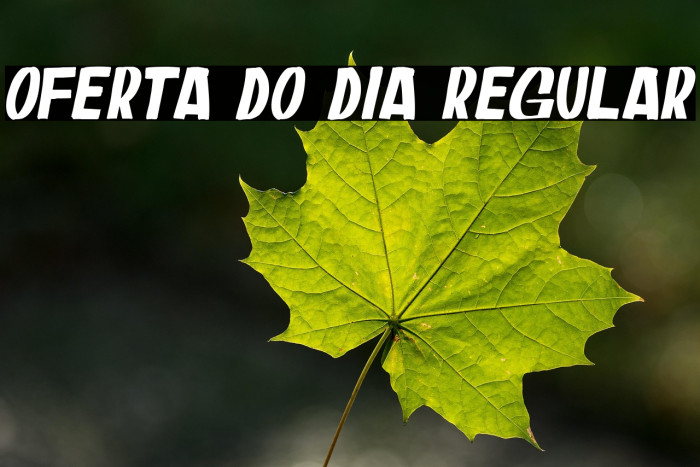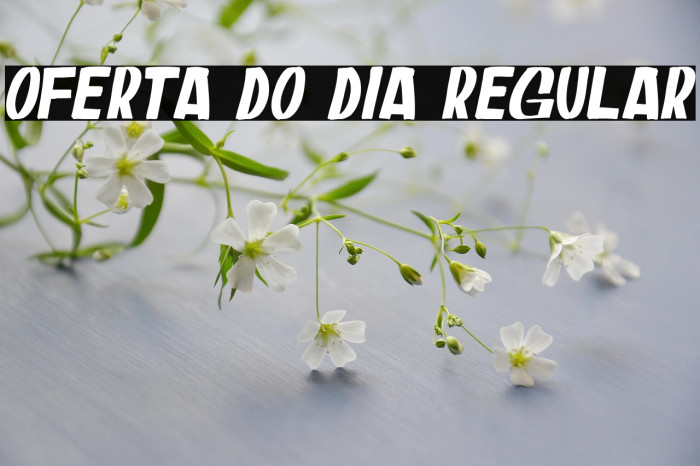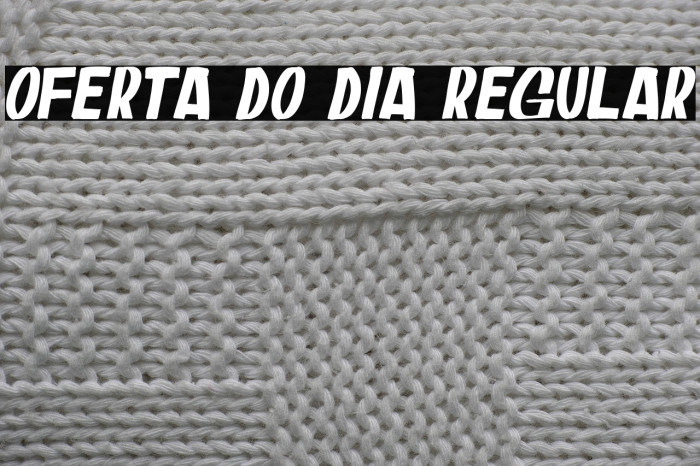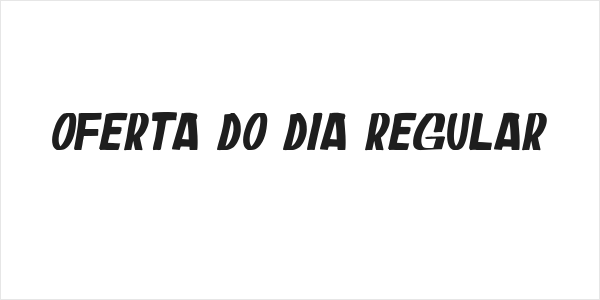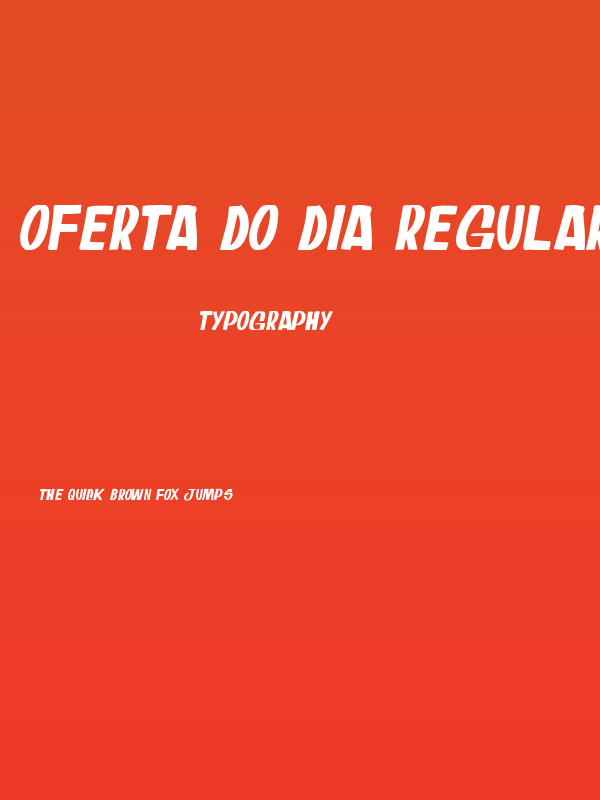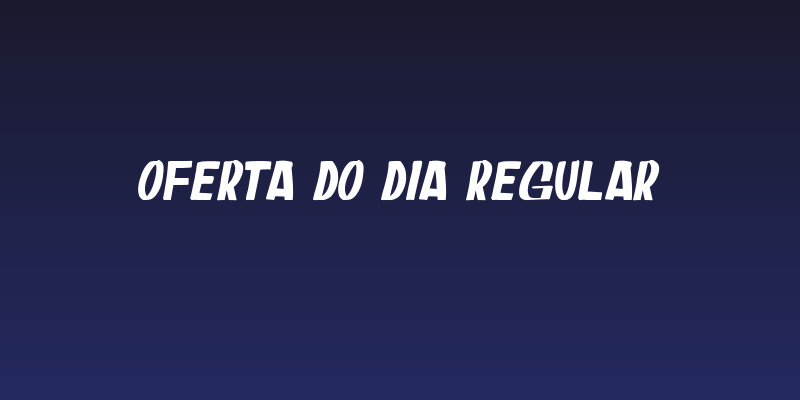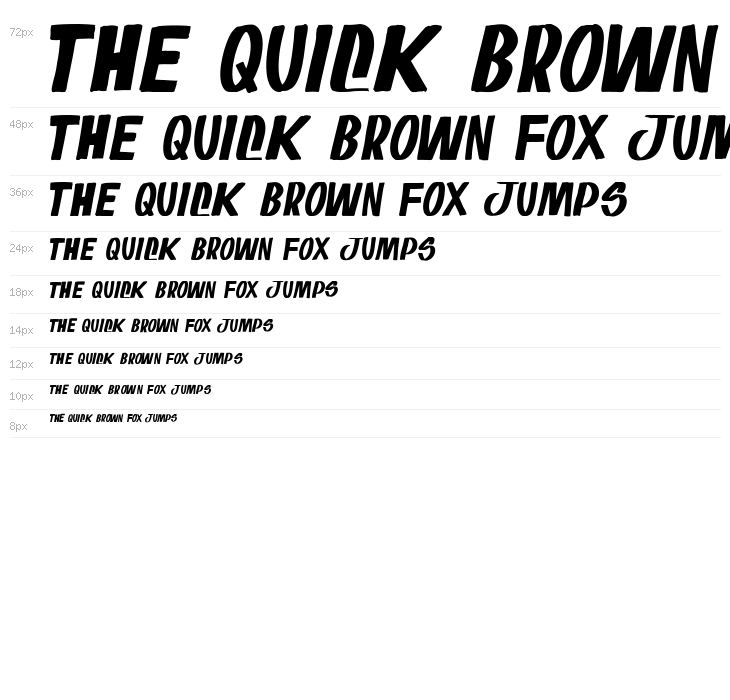
Oferta do Dia Regular Font
Oferta do Dia Regular Description
This font features a bold and dynamic style with a strong presence, characterized by its thick, brush-like strokes and slightly slanted letters. The uppercase and lowercase characters maintain a consistent weight, giving it a cohesive look. The numbers and special characters follow the same bold aesthetic, making them stand out. The font's energetic and expressive nature makes it suitable for eye-catching designs. Its unique style combines elements of both script and display fonts, offering versatility in various design contexts. The strokes are smooth yet bold, providing a sense of movement and fluidity. This font is ideal for projects that require a strong visual impact, such as posters, headlines, and branding materials.
| Proposed Projects | Ideal for posters, headlines, branding, and any design needing a strong visual impact. |